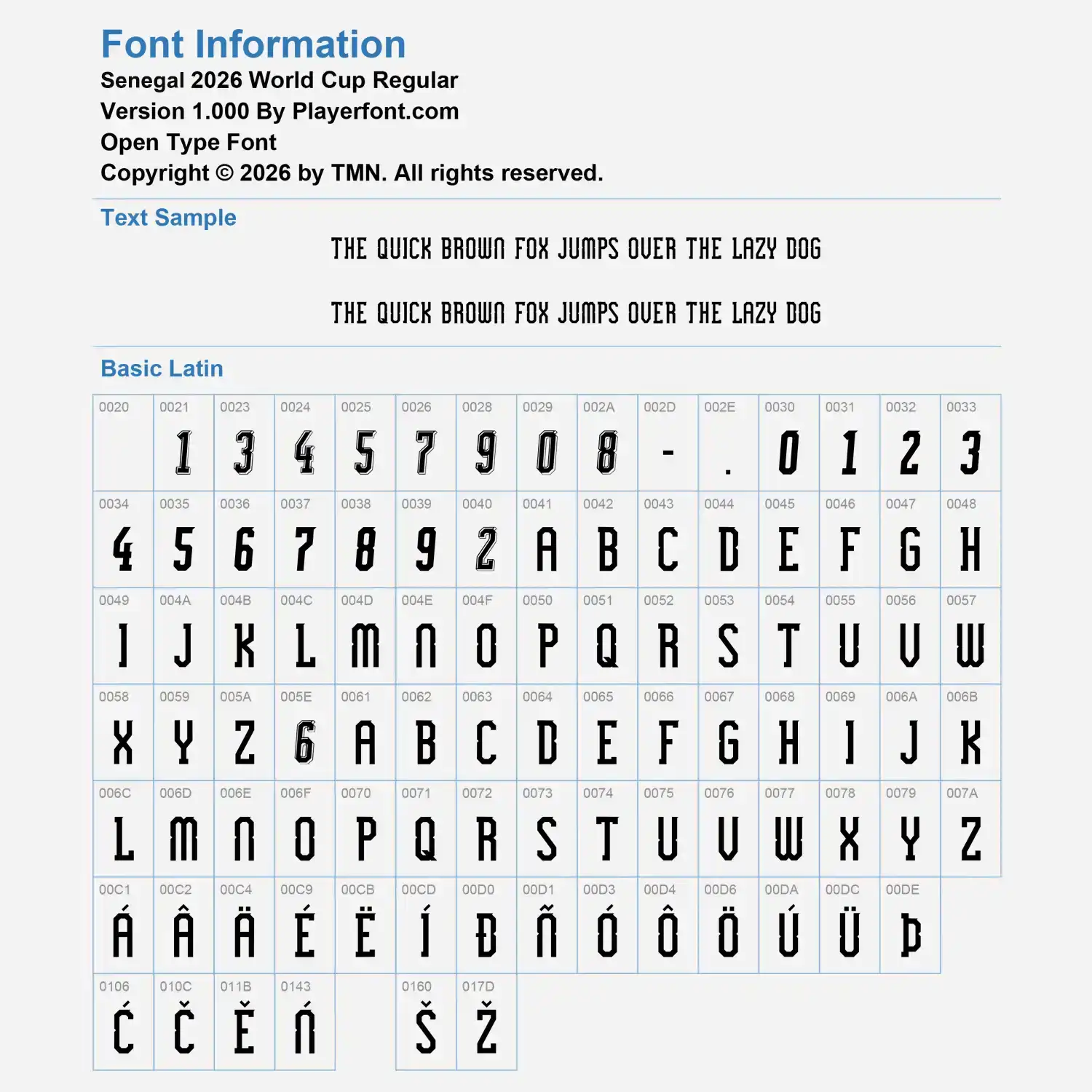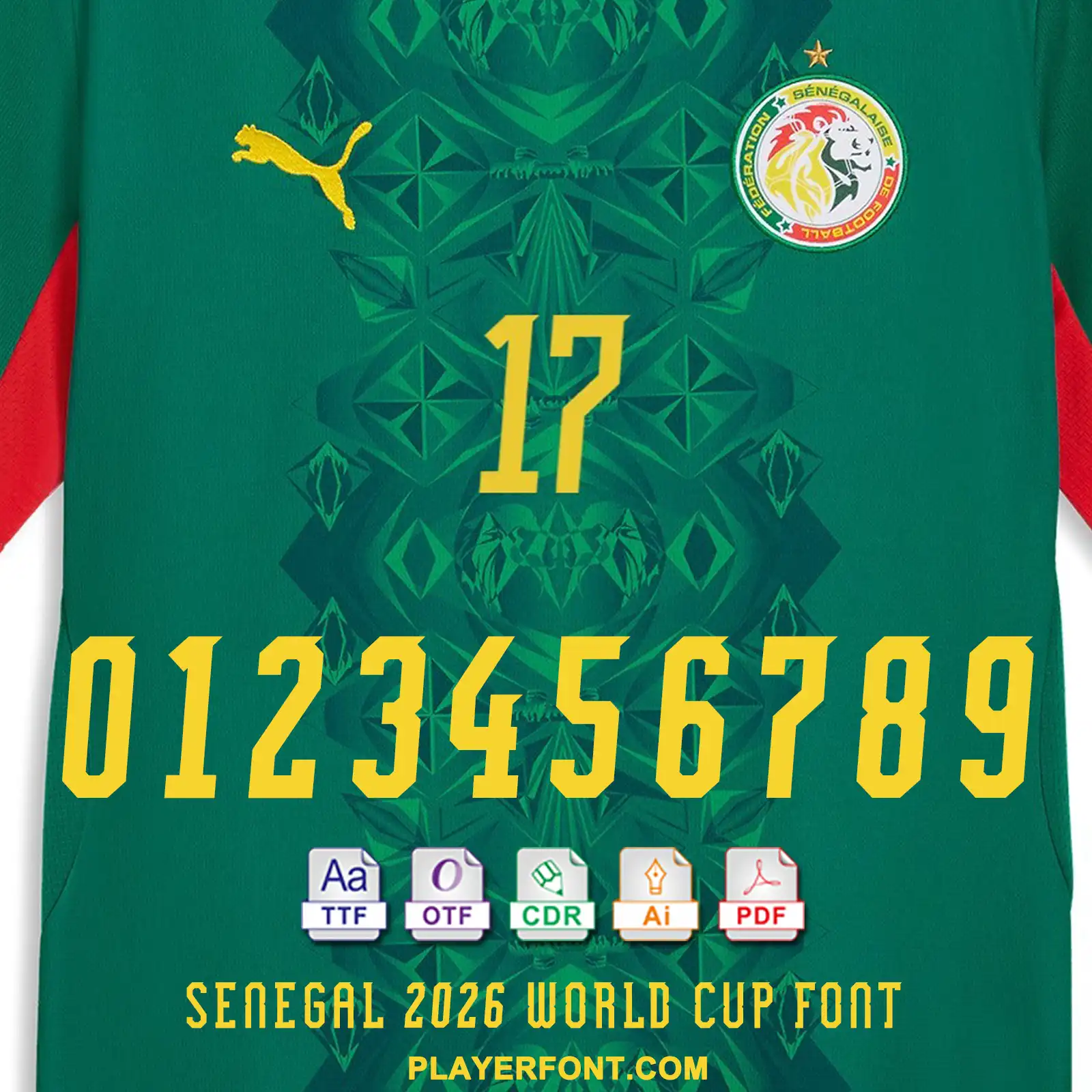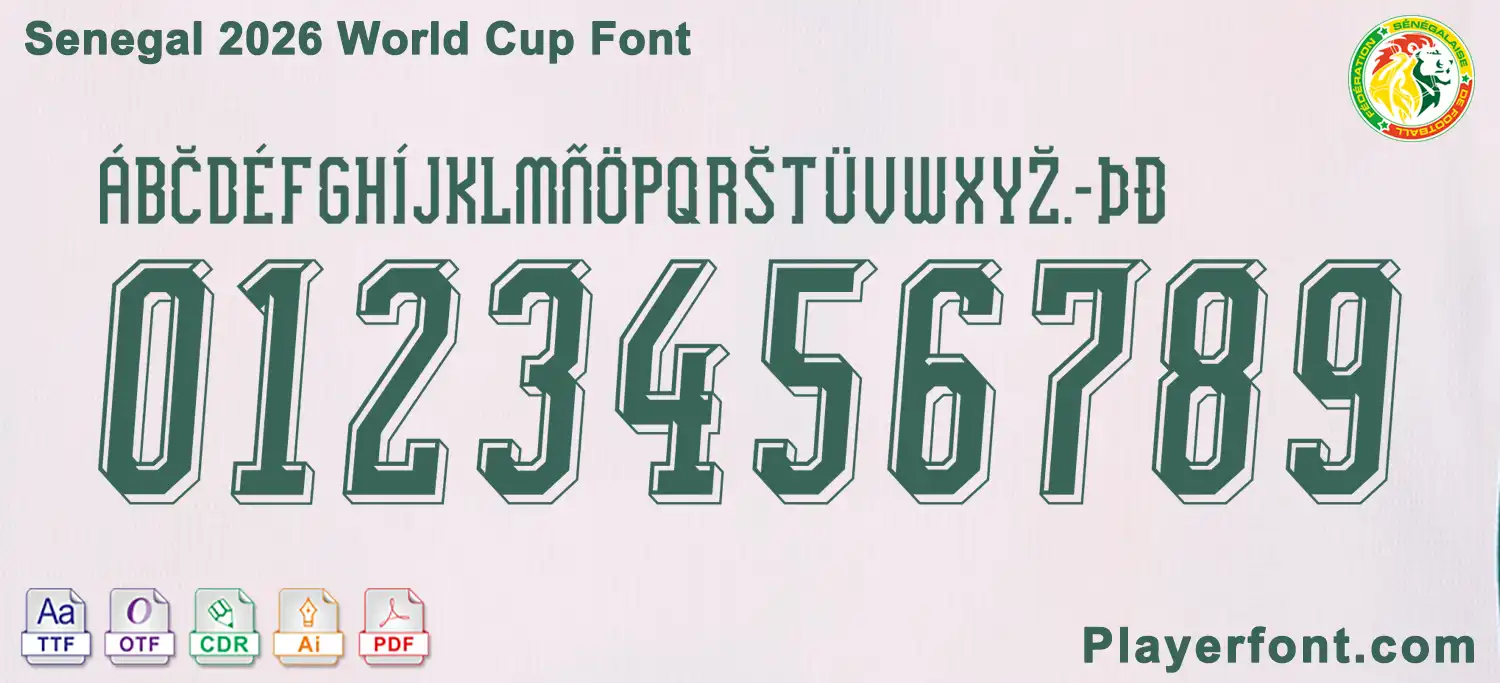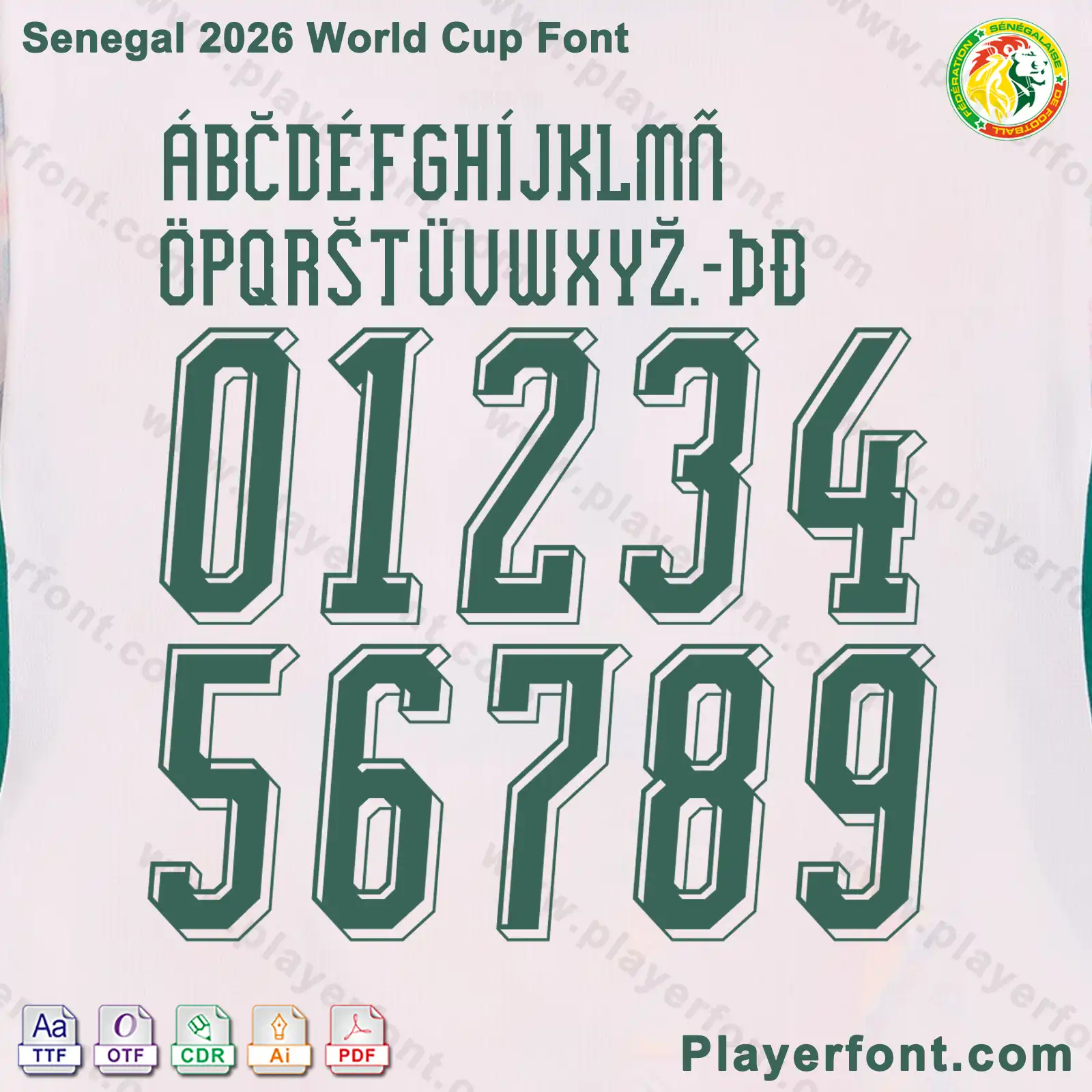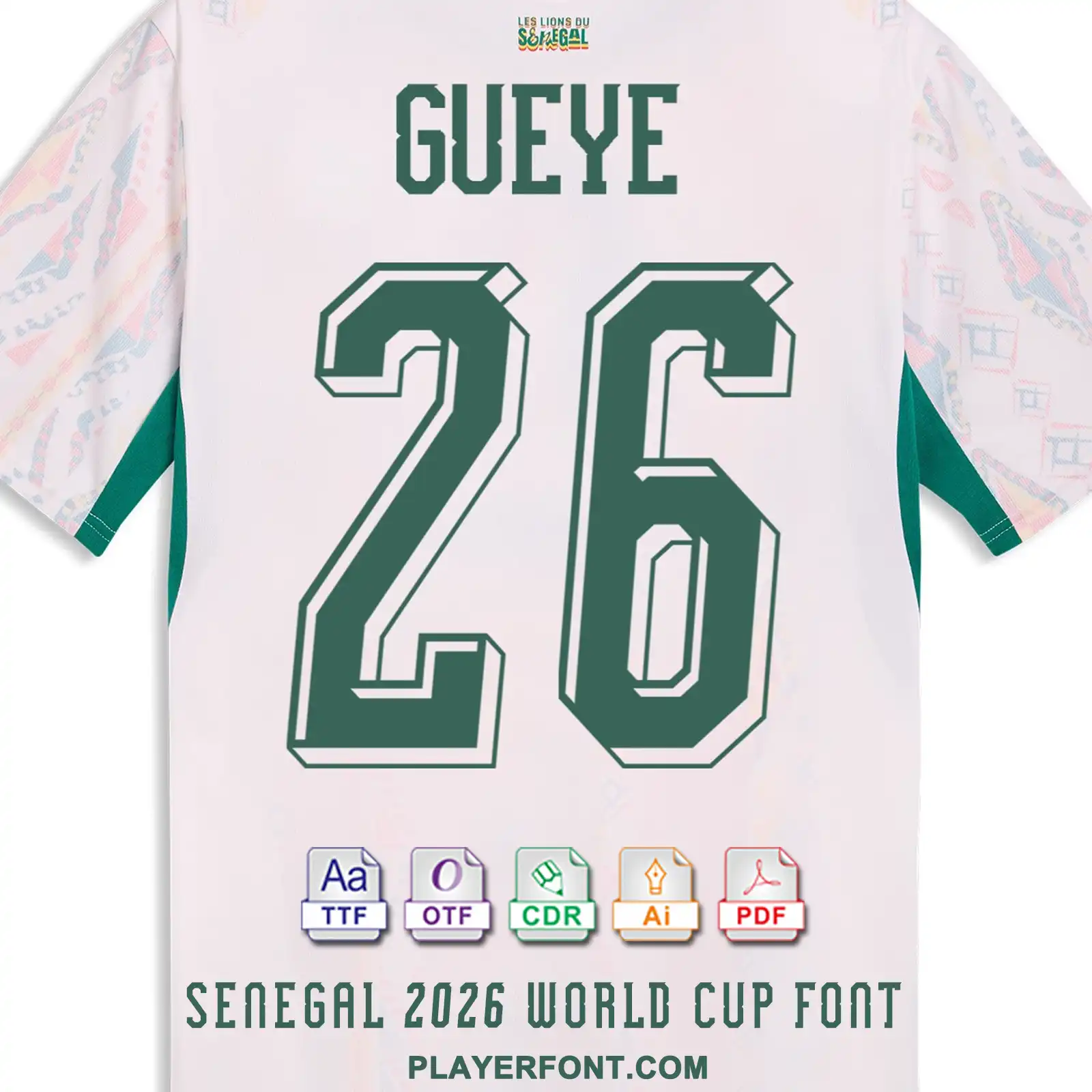
Elevate your sports apparel designs with the Senegal 2026 World Cup font. This kit is meticulously crafted to match the official typography used by the Lions of Teranga. Whether you are creating custom jerseys, fan merchandise, or digital graphics, this font provides a sharp, modern aesthetic that captures the spirit of Senegalese football.
The font features bold, blocky structures and unique cutouts, making it perfect for heat-press vinyl cutting and high-resolution sublimation.
• Complete Set: Includes uppercase letters, numbers 0-9, and basic punctuation.